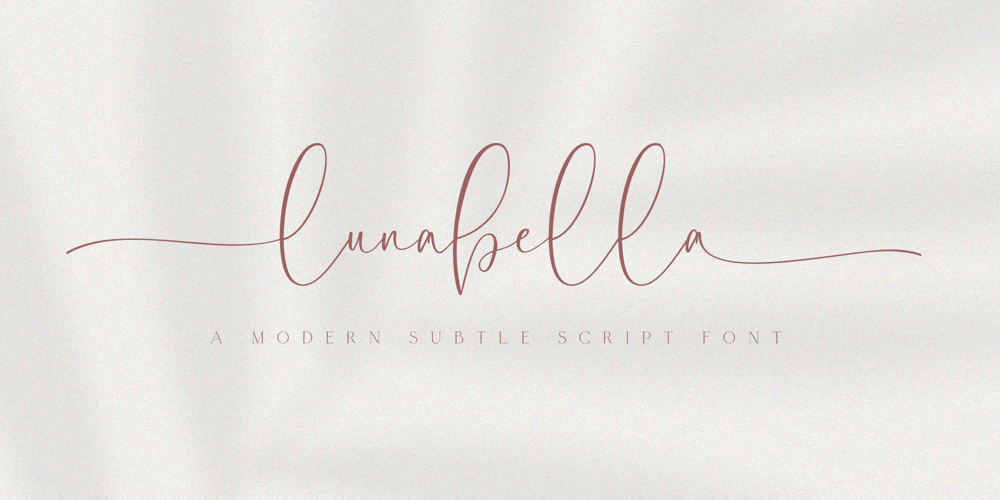
Lunabella Font Family was designed by Zak M and published by Prestige Artsy Studio. Lunabella contains 1 styles and family package options. Introducing “Lunabella” – a beautifully delicate script font that exudes sophistication and charm. Perfect for any creative project, this exquisite typeface features an array of stylistic alternates, allowing you to customize and embellish each letter to perfection. Whether you’re designing wedding invitations, branding materials, or elegant stationery, “Lunabella” offers endless possibilities with its graceful curves and intricate details. Let your words dance across the page with a touch of timeless elegance.